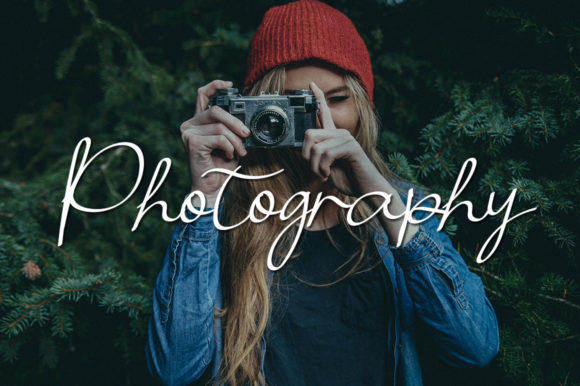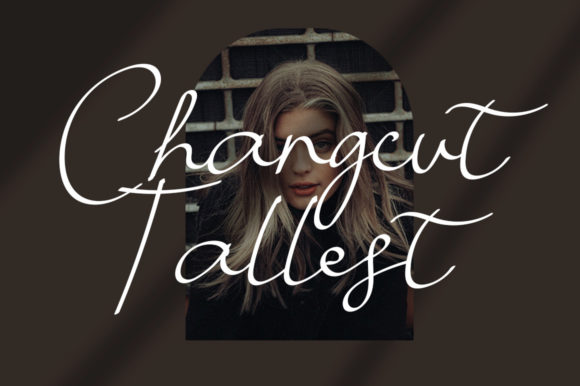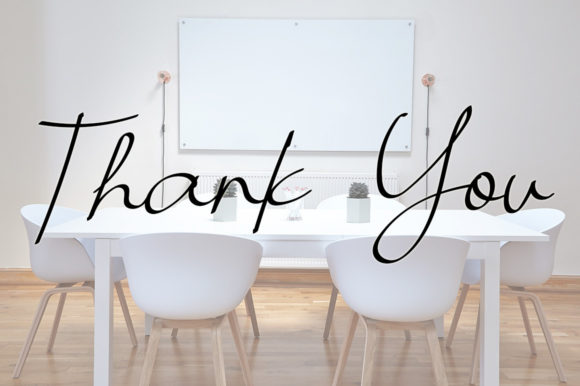
Introduction to Hollyday Brother Font
Hollyday Brother is a beautiful and sweet script font.
It is fresh, clean, and elegant This font will look amazing in a great amount of projects, both formal and informal.
Key Features of Hollyday Brother Font
Why Choose Hollyday Brother Font?
Hollyday Brother Font offers exceptional quality and versatility, making it a valuable addition to your design toolkit. Whether you’re creating for personal projects or commercial use, Hollyday Brother Font delivers professional results.